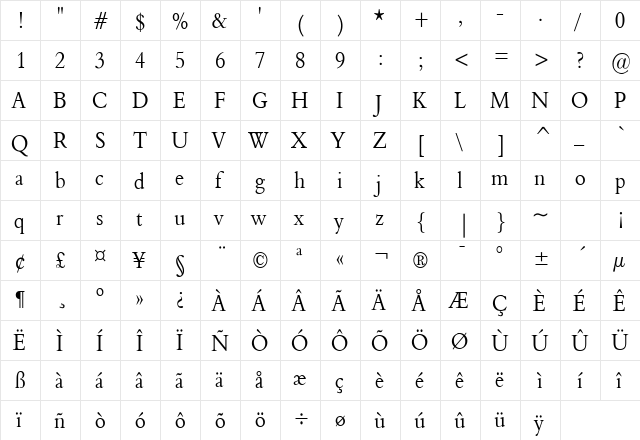
Nadine 2 Condensed Normal
Design Context for Nadine 2 Condensed Typeface
Nadine 2 Condensed offers clean, dependable letterforms without strong stylistic allegiance, making it a practical choice for designers who need flexibility. Its narrow stance lets it pack a punch even in space-constrained designs.
Pro Tip: Use Nadine 2 Condensed in both headline and body roles to test its range before committing to a single application.